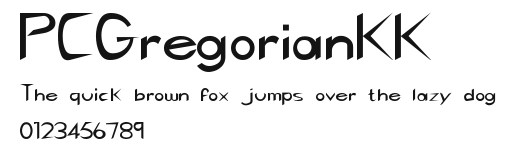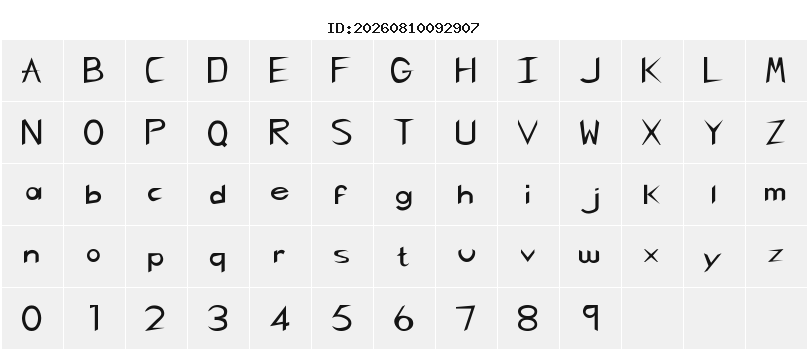
• Font Name: PCGregorianKK
• Full Font Name: PCGregorianKK
• PostScript Name: PCGregorianKK
About PCGregorianKK.ttf
PCGregorianKK.ttf is a modern, elegant sans-serif font designed for ultimate readability and visual harmony. Perfect for branding, headlines, web design, and print materials.